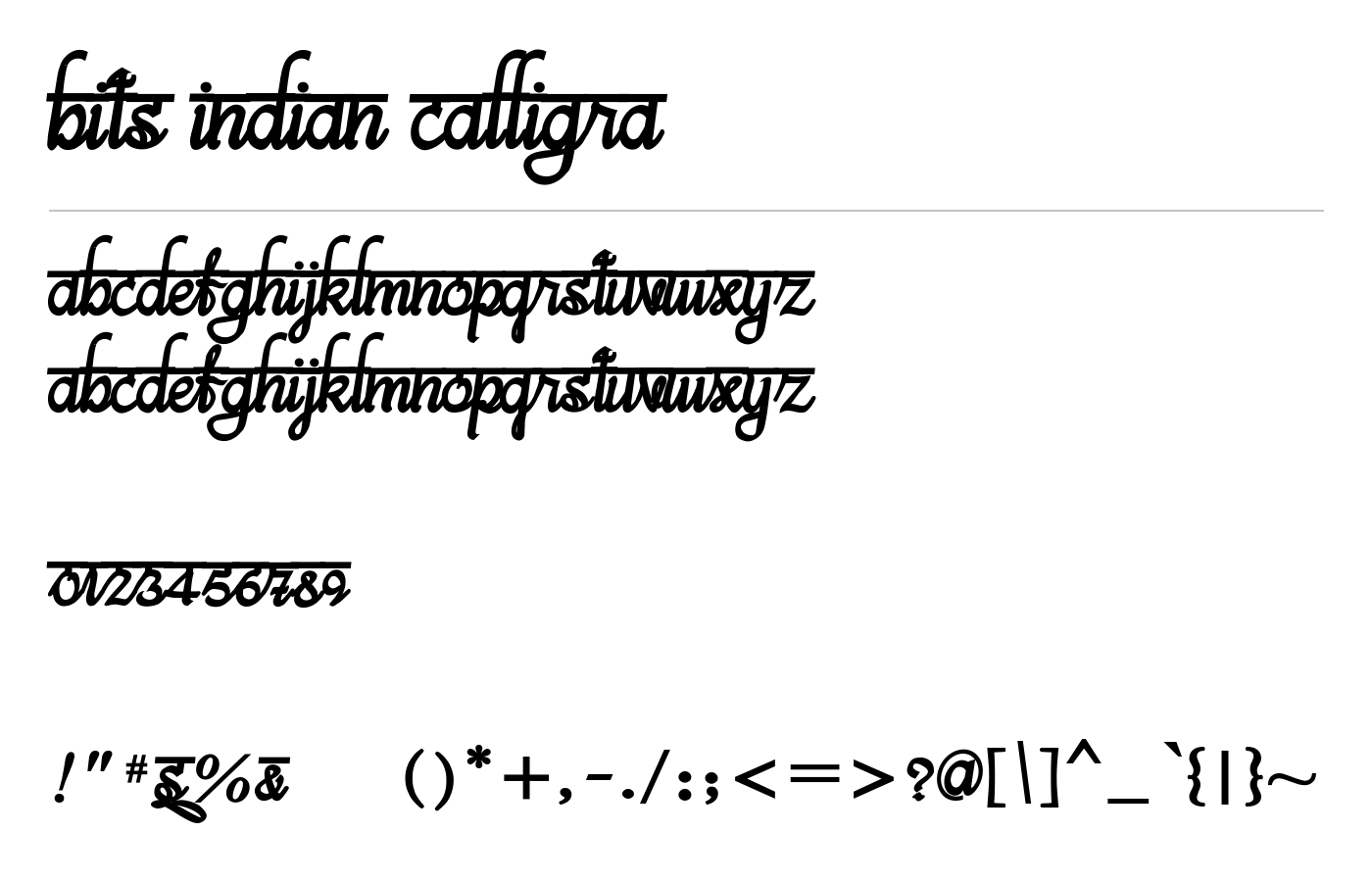
Bits Indian Calligra is a distinctive script font that combines elegance with a hand-drawn, calligraphic style. Its flowing, connected letterforms feature a medium weight with a moderate contrast and slightly condensed width, creating an artistic and dynamic feel ideal for creative and cultural designs. This font works beautifully for invitations, branding, and decorative headlines where a personal, stylish touch is desired.
bits indian calligra Font
About bits indian calligra Font